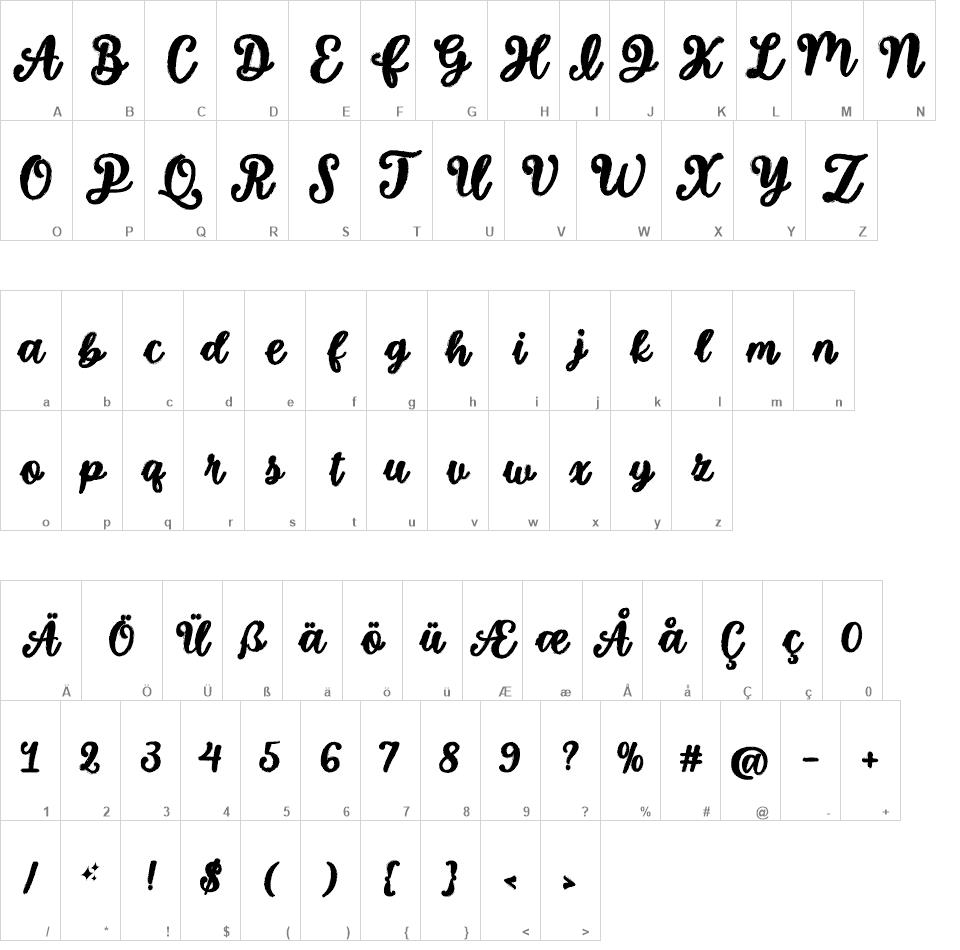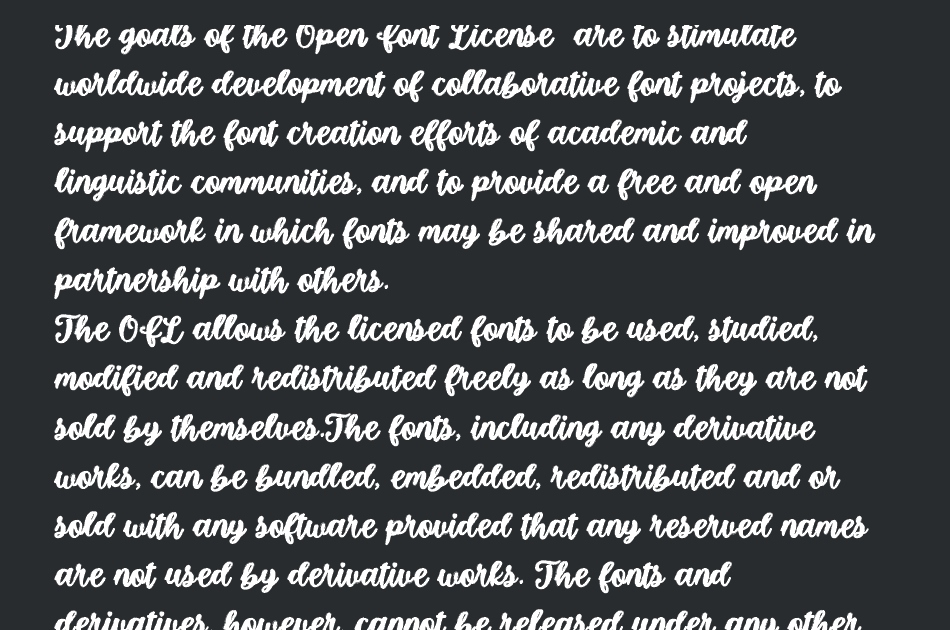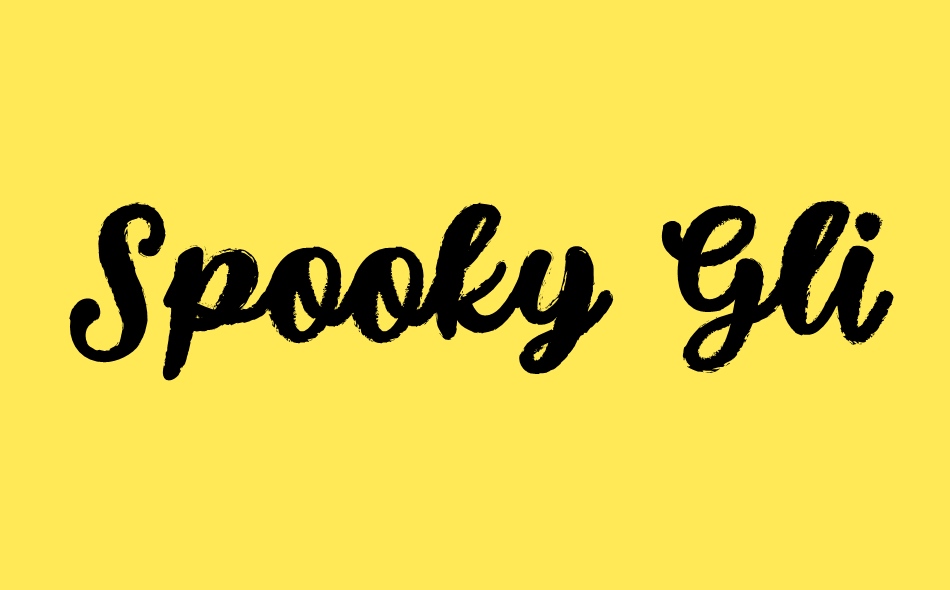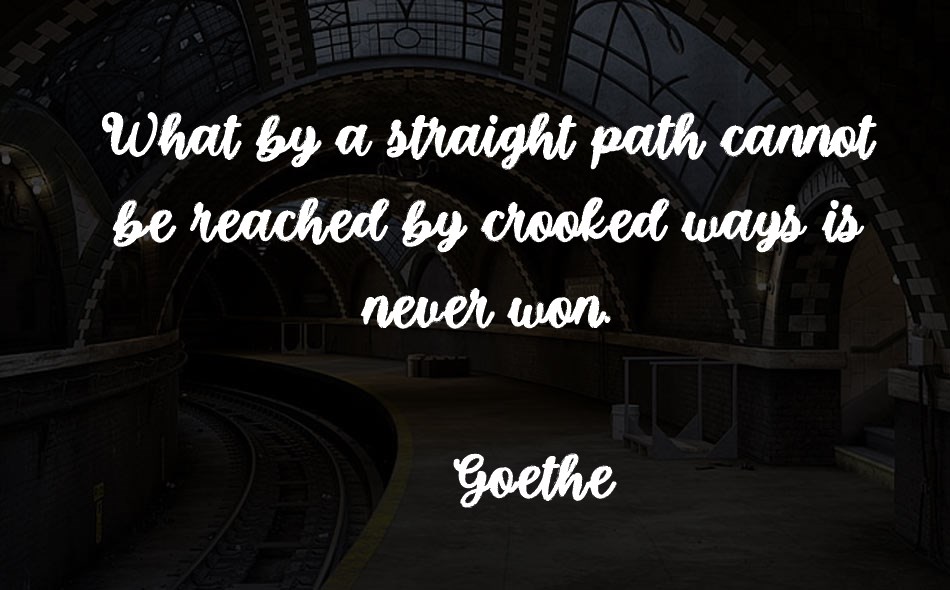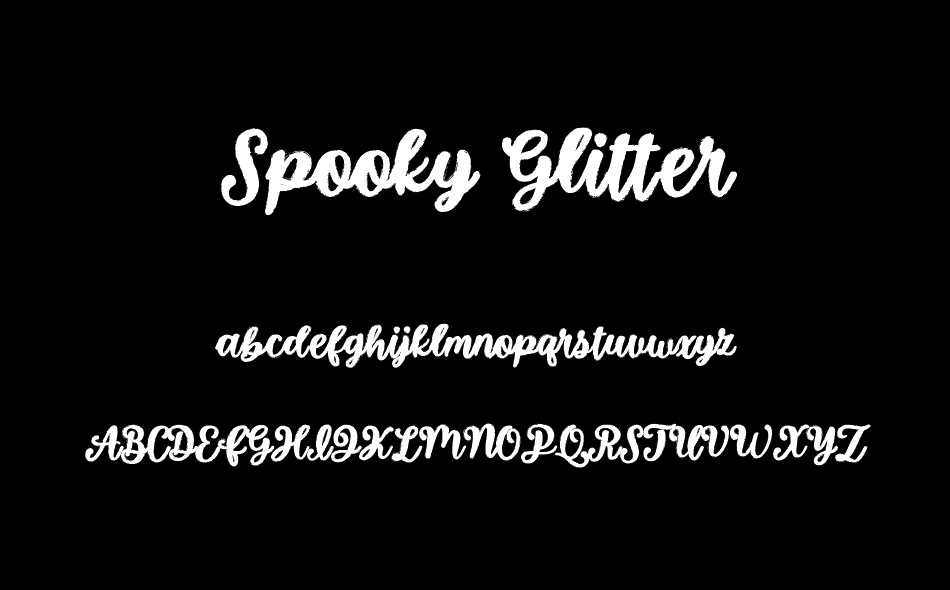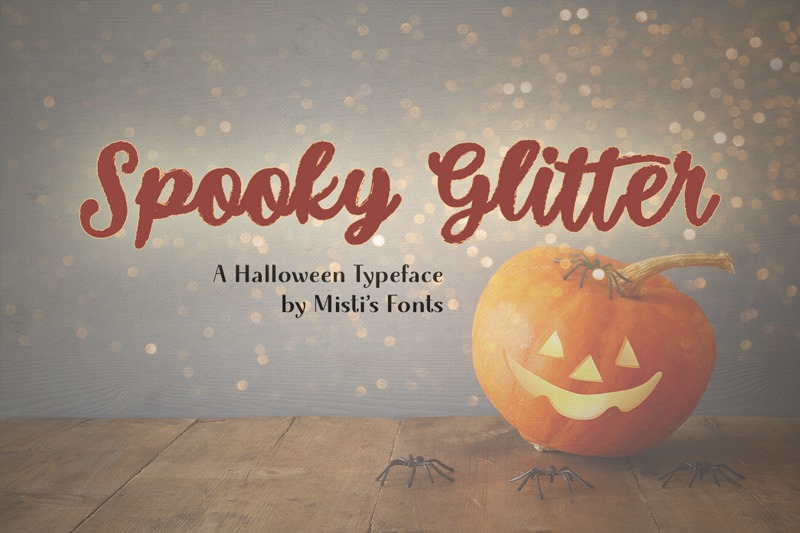
Spooky Glitter font
Spooky Glitter is a cool, flowing and brushed handwritten font. Suitable to a wide variety of designs due to its neat and simple style, this font has the potential to become your favorite go-to font, no matter the occasion!